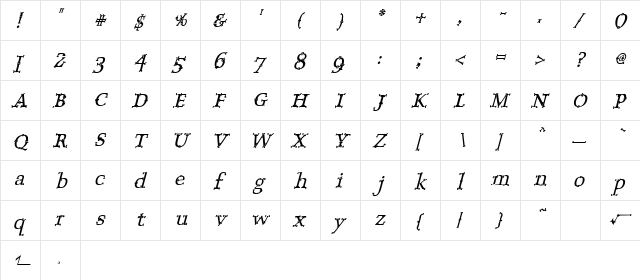
OsseousSlanted Regular
Design Context for OsseousSlanted Typeface
OsseousSlanted takes a measured approach to typography — its balanced proportions and neutral character make it a reliable workhorse for both digital and print work. Its italic angle brings a sense of urgency and motion to the letterforms.
Pro Tip: Try OsseousSlanted for annotation and caption copy alongside an upright companion — the contrast in angle creates a dynamic but ordered typographic system.